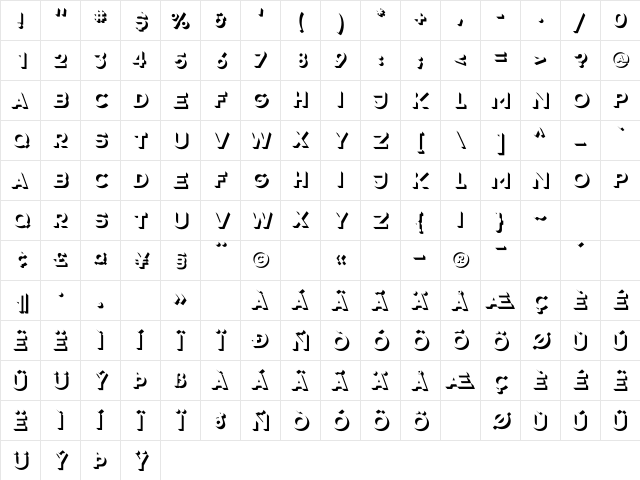
P22 Bayer Shadow Regular
Design Context for P22 Bayer Shadow Typeface
P22 Bayer Shadow is built around its visual character rather than neutral utility — its distinctive forms are designed to make an impression at display sizes.
Font Pairing: Pair with a clean neutral sans-serif for body copy to let P22 Bayer Shadow's character lead without overwhelming the composition.
Pro Tip: Treat P22 Bayer Shadow as the centrepiece of your typographic hierarchy. One strong heading set in a decorative face can carry an entire layout.